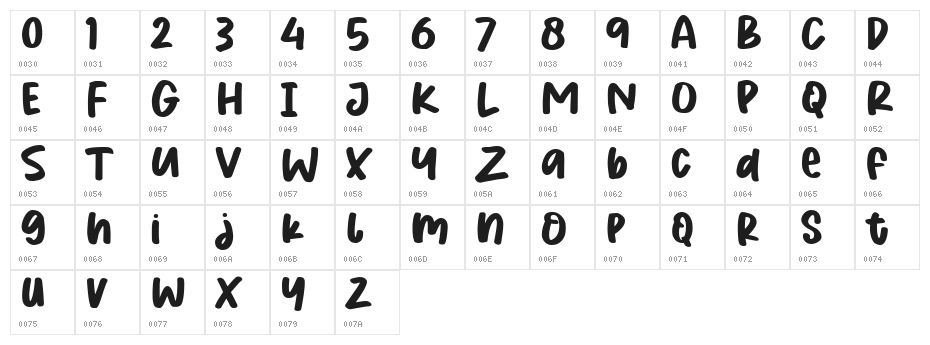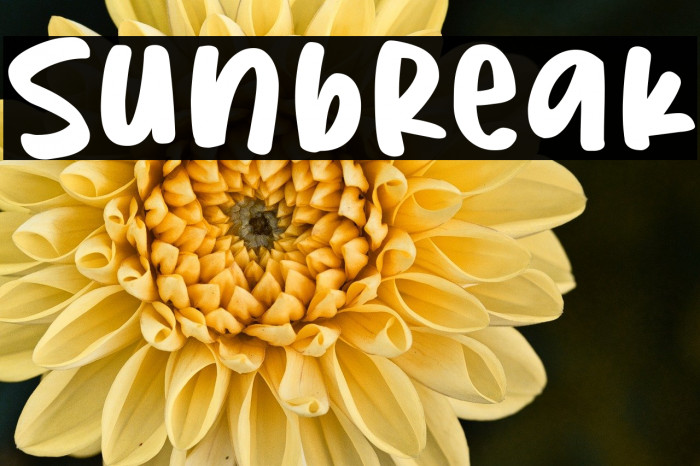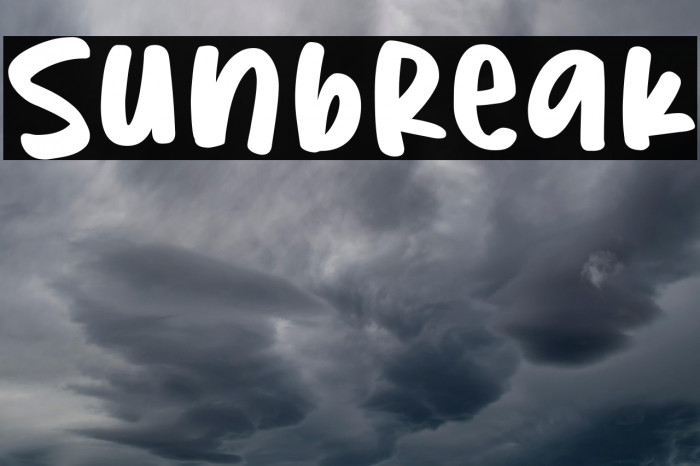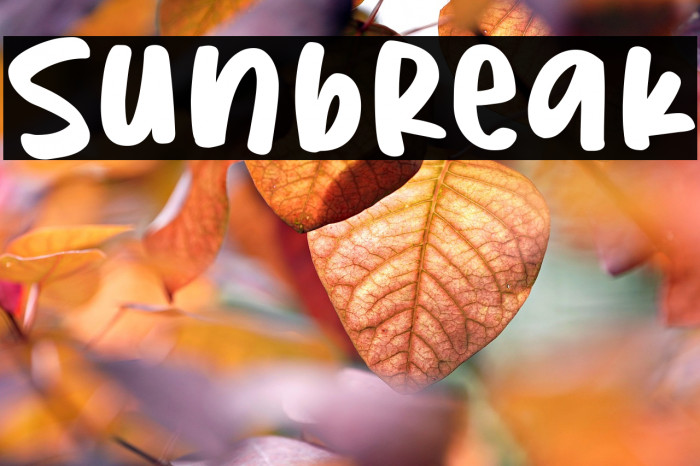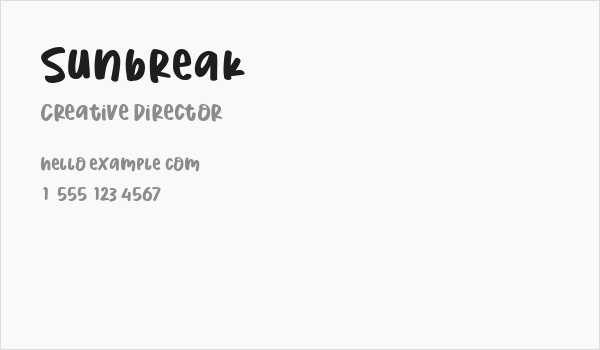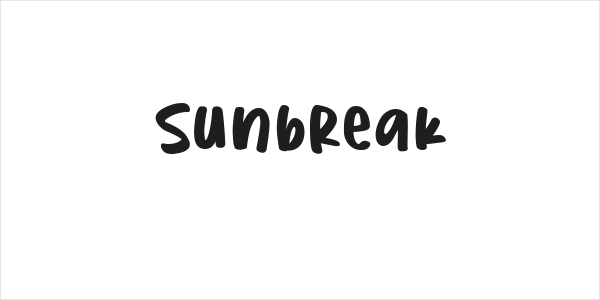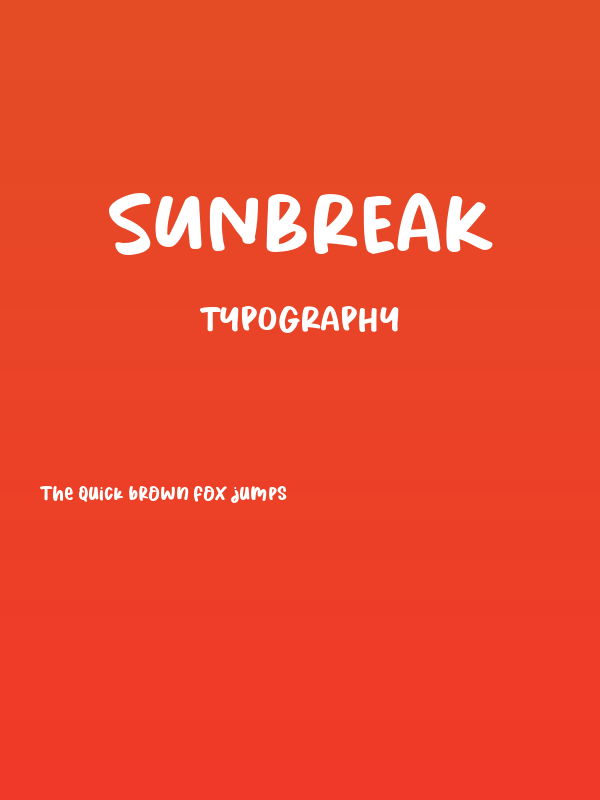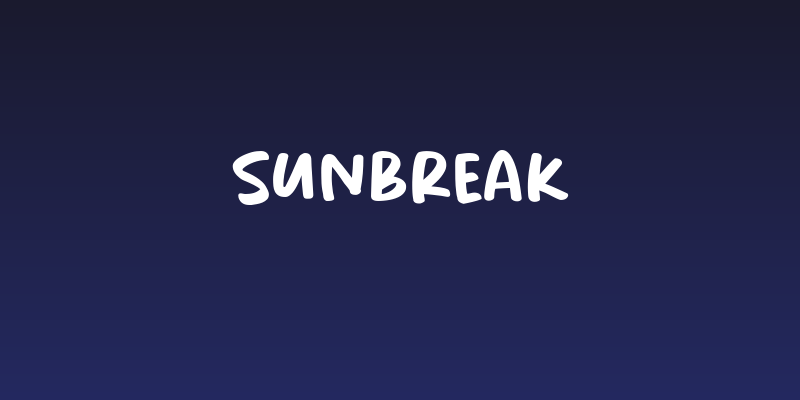
Sunbreak Font
Sunbreak Description
A playful, handwritten font with bold strokes and a casual style, featuring rounded edges and a friendly appearance.
| Overall Style | Casual, Friendly |
| Proposed Projects | Greeting cards, children's books, casual branding. |